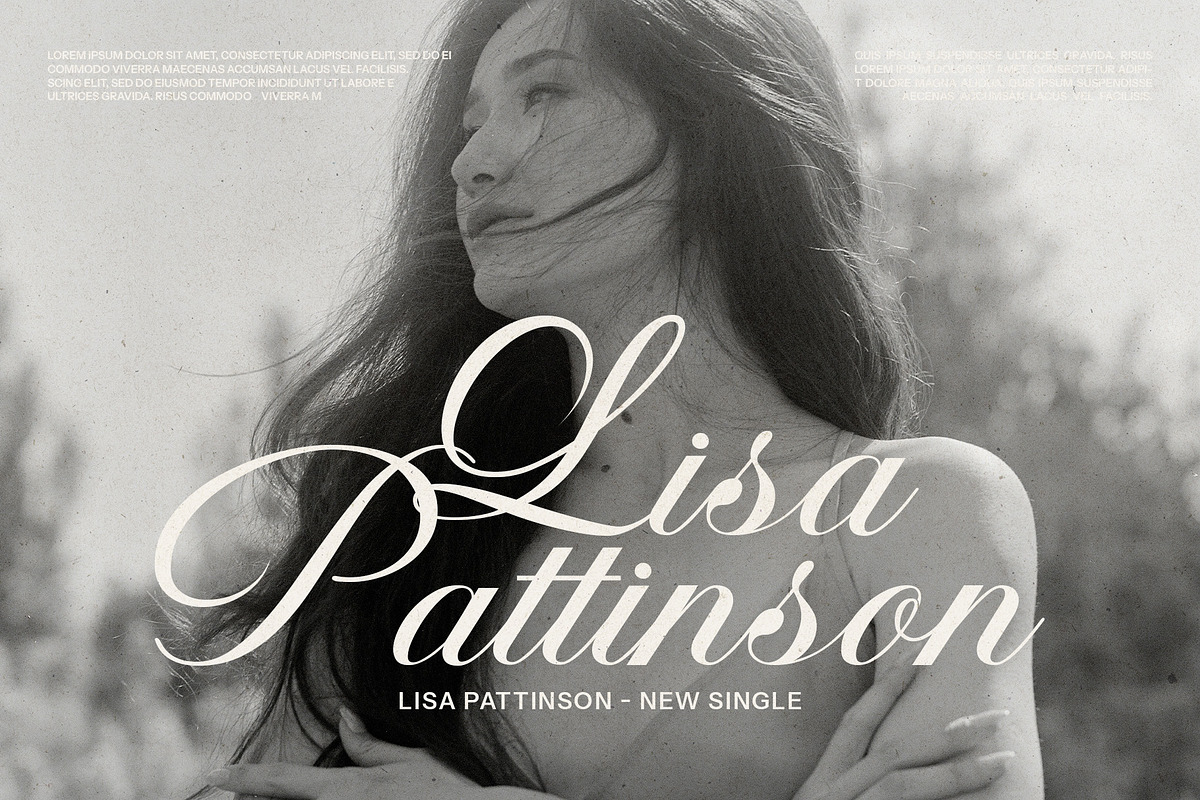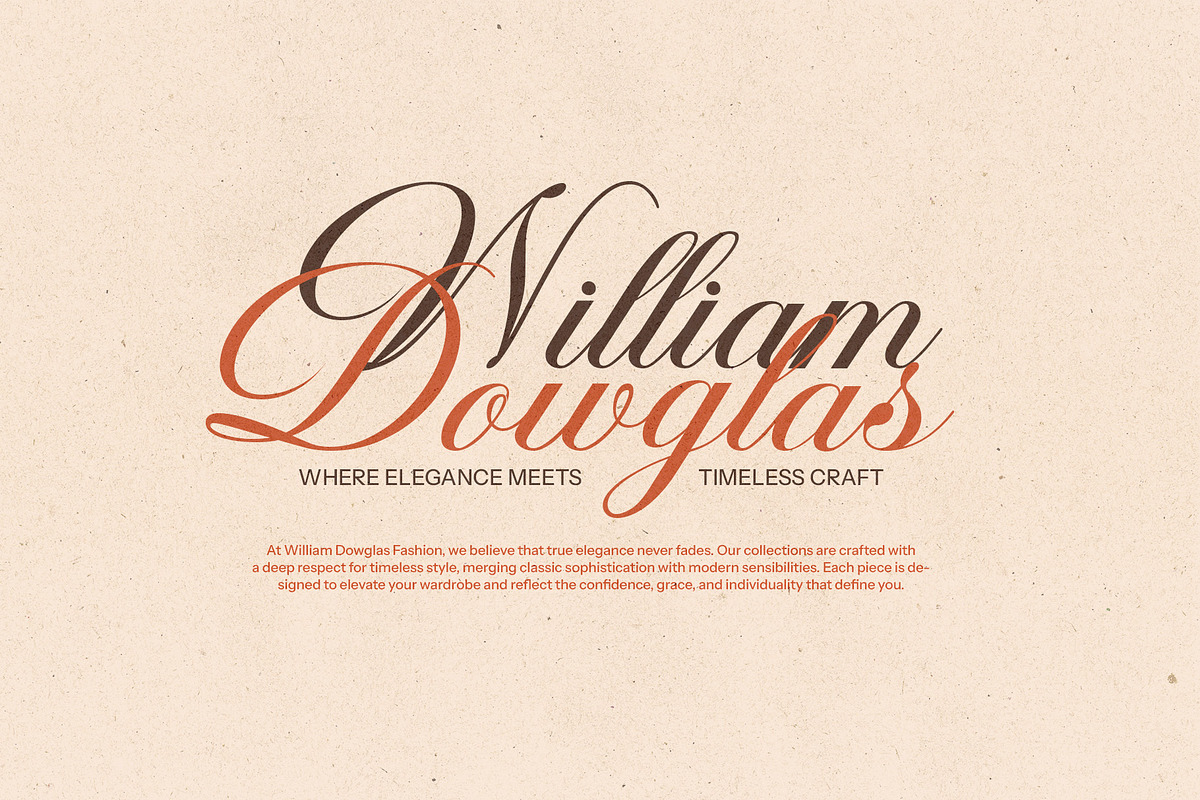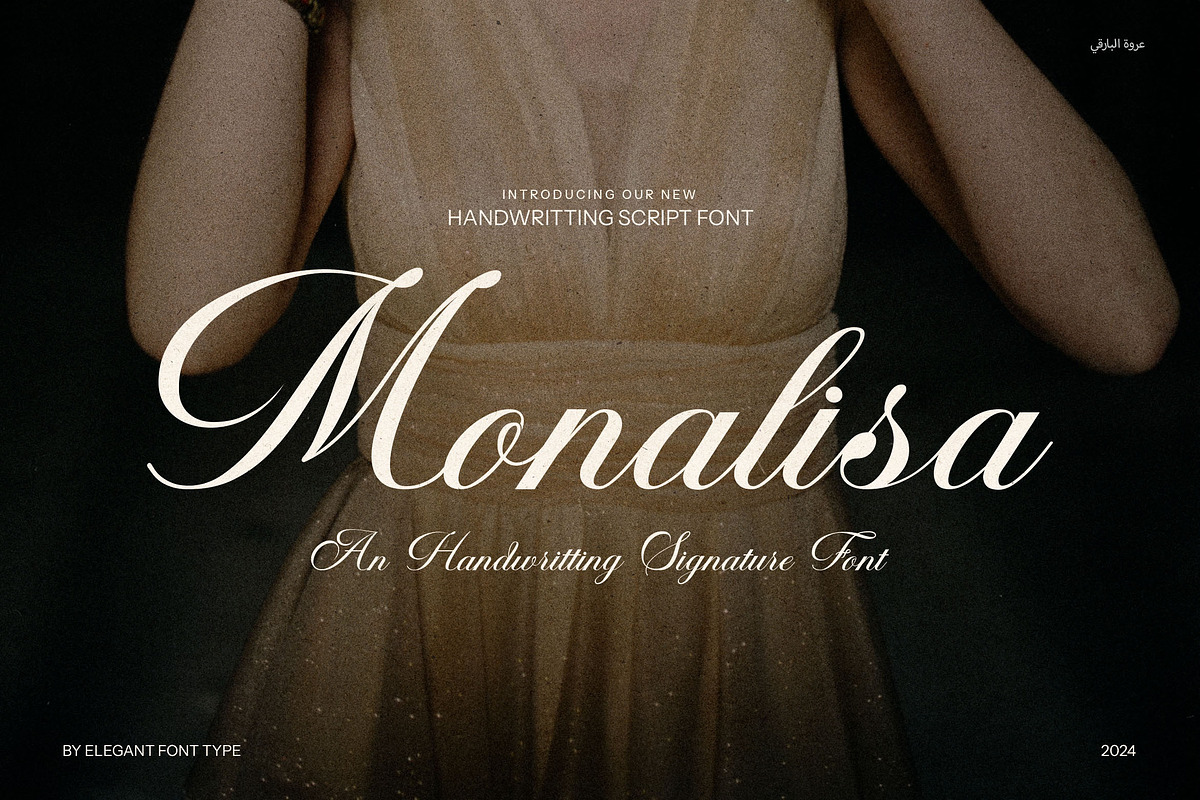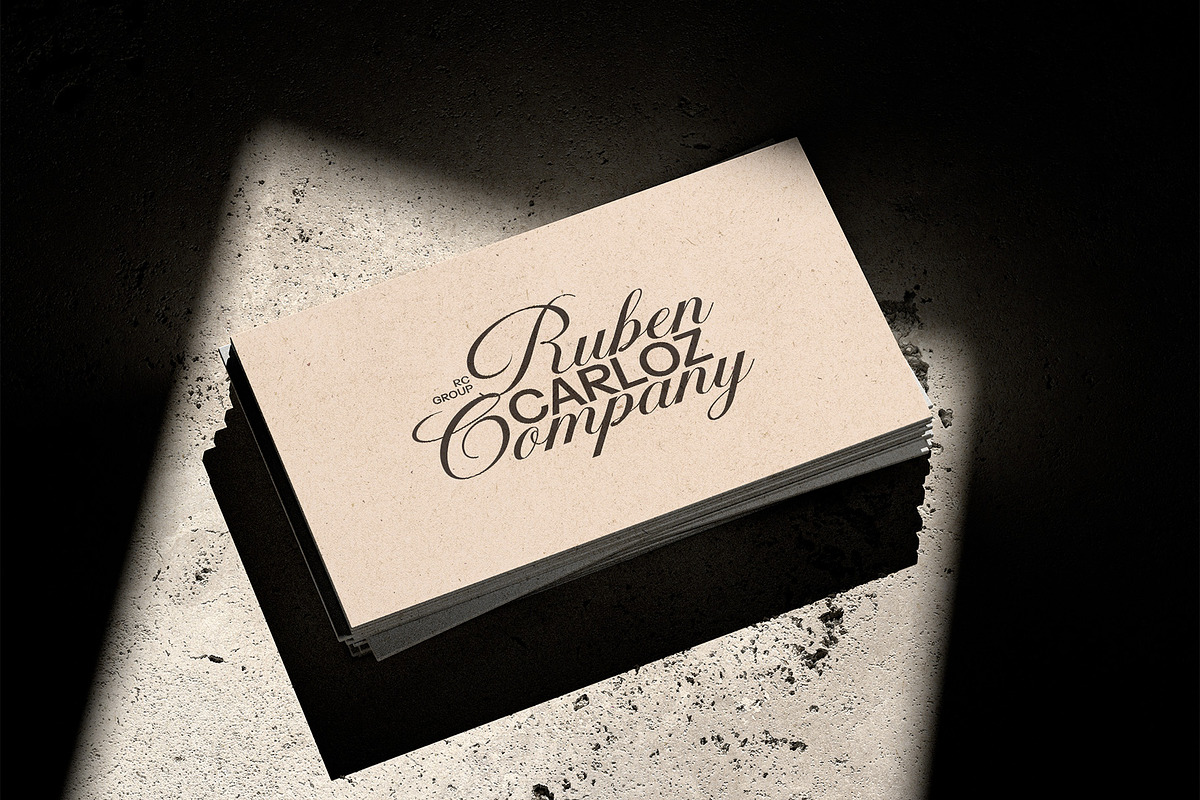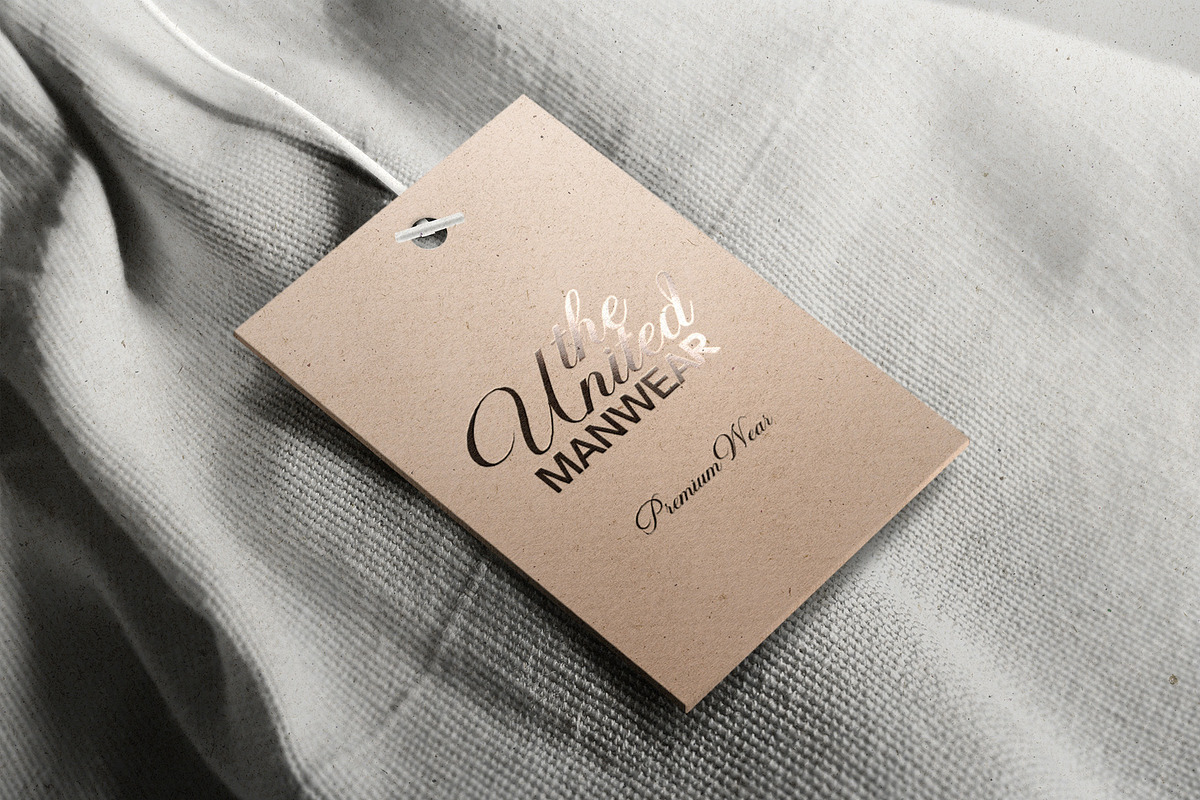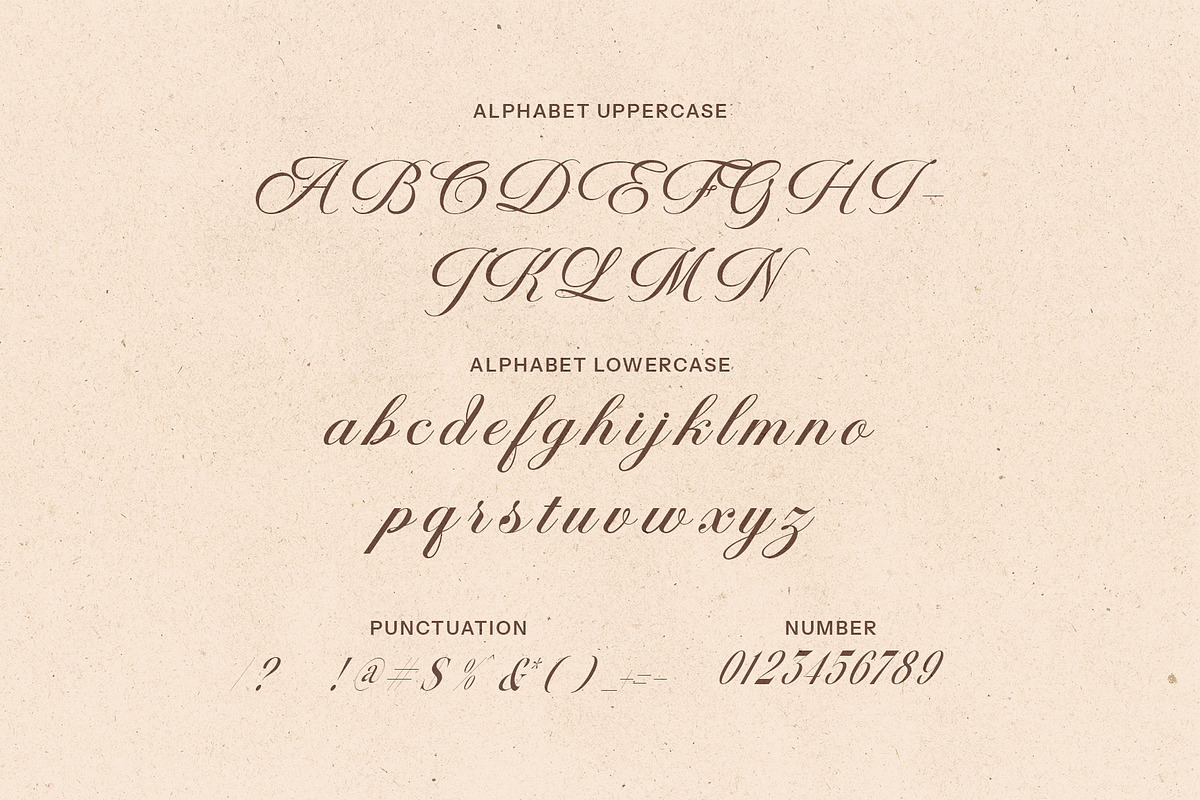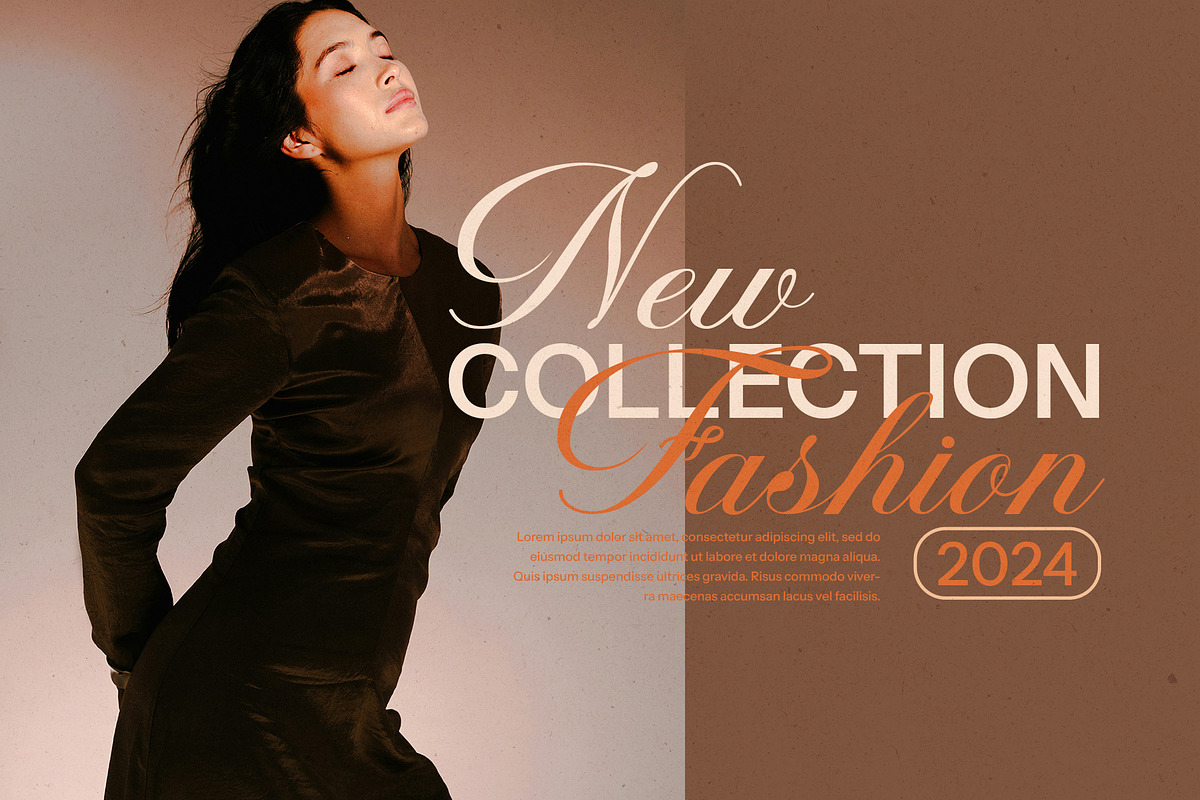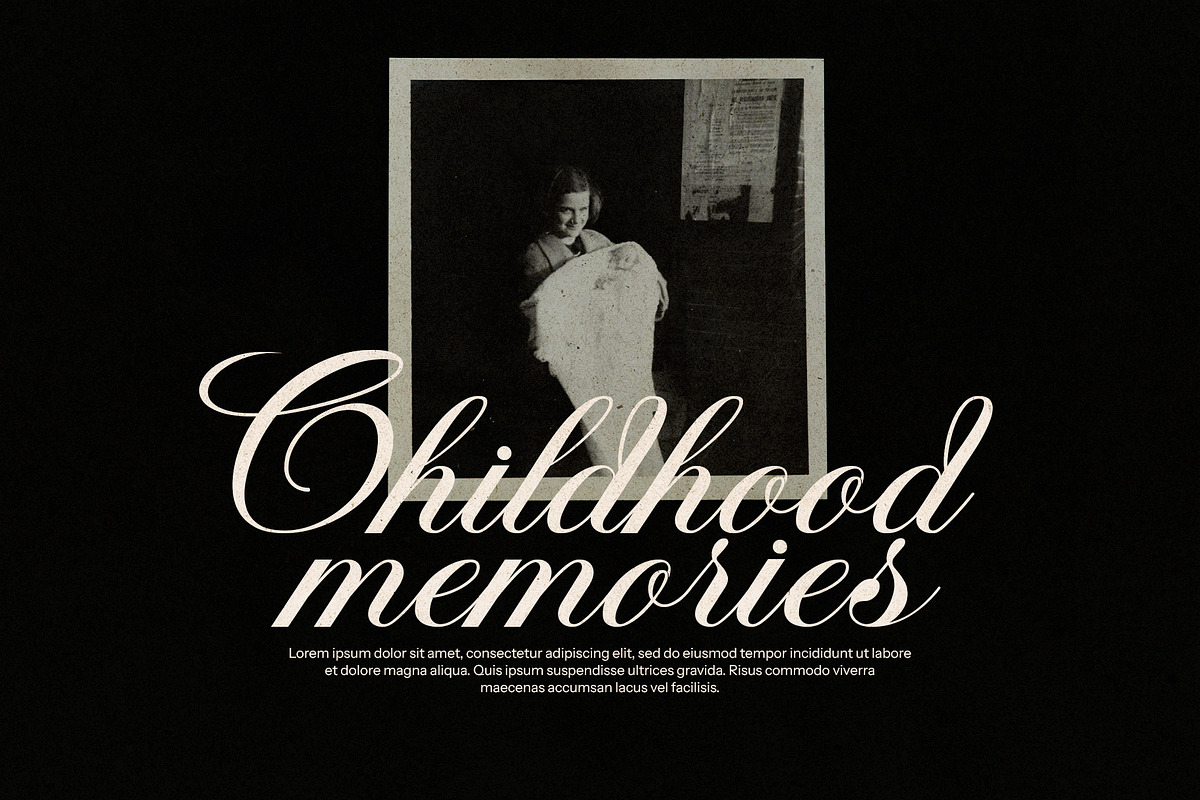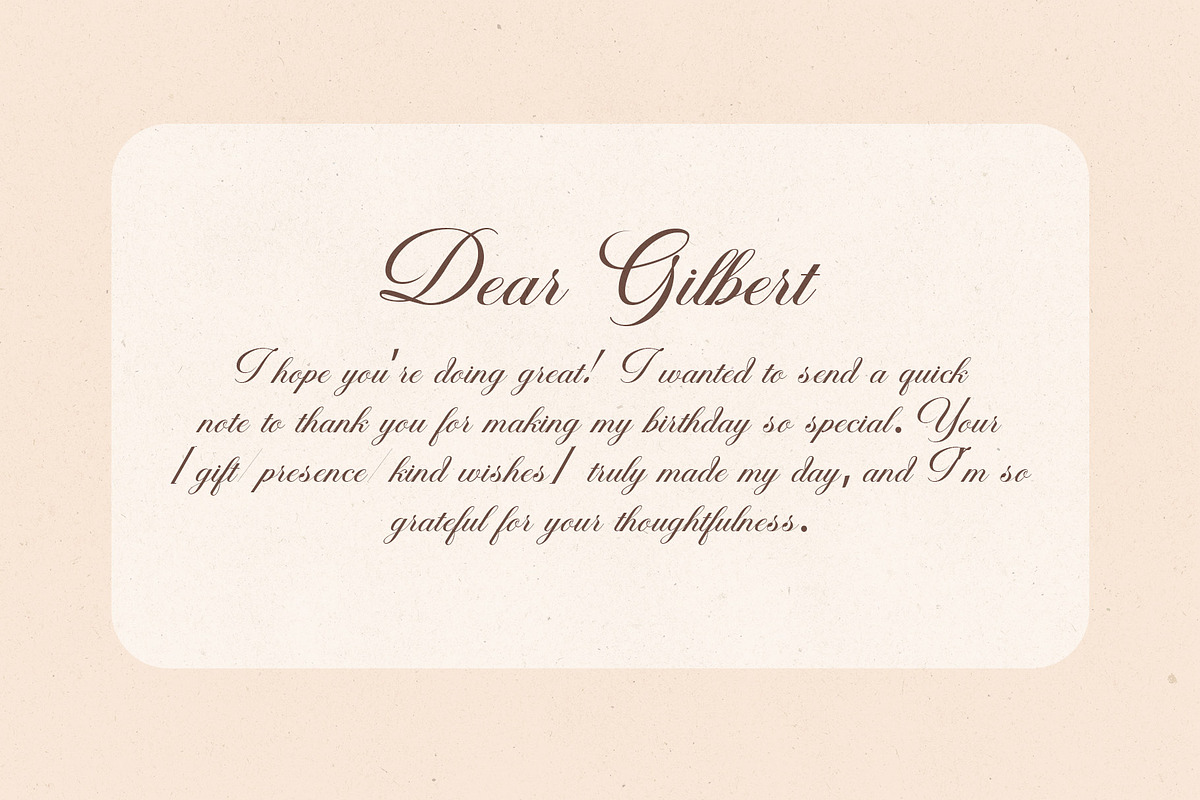
Monalisa Wedding Script Font
Monalisa Wedding Script Font is a graceful and luxurious script typeface that captures the essence of timeless romance and modern sophistication. Designed with delicate curves, flowing strokes, and an array of stunning calligraphic alternates, this font brings a handcrafted elegance to every design. Whether you're creating for a bride, a brand, or a boutique, Monalisa Wedding adds a heartfelt, personal touch that turns simple words into visual poetry.
With its rich selection of alternate characters, swashes, and ligatures, Monalisa Wedding Script is ideal for designers who love flexibility and artistic flair. The font seamlessly adapts to both formal and creative projects, making it perfect for wedding invitations, branding, event logos, album covers, fashion spreads, magazines, and more.
This romantic script font is especially suited for Canva projects, business cards, personal monograms, website headers, and luxury packaging. Its graceful rhythm and smooth letter connections give your text a natural flow that evokes warmth, elegance, and emotion—ideal for crafting unforgettable wedding stationery, save-the-date cards, thank-you notes, and vows.
Each letter in Monalisa Wedding Script has been thoughtfully crafted to maintain both beauty and readability, making it the go-to font for creatives who value style and storytelling. It transforms ordinary projects into elegant keepsakes, with a personal and poetic feel that lingers.
Celebrate the art of romantic design with Monalisa Wedding Script Font—where every stroke tells a love story, and every word becomes a piece of timeless elegance.